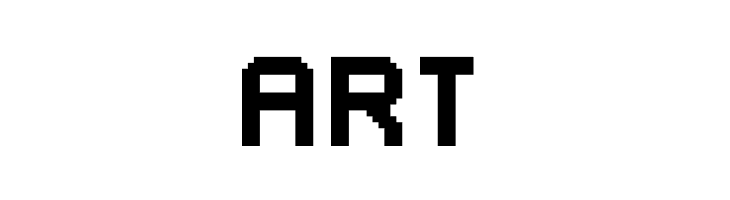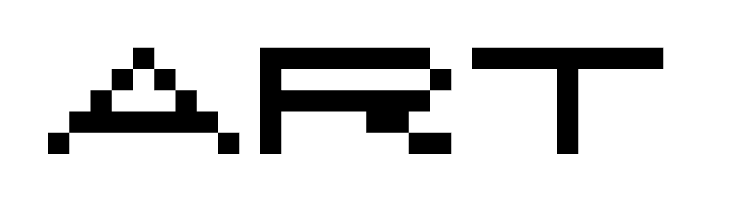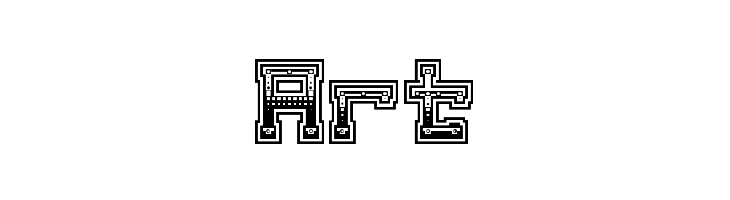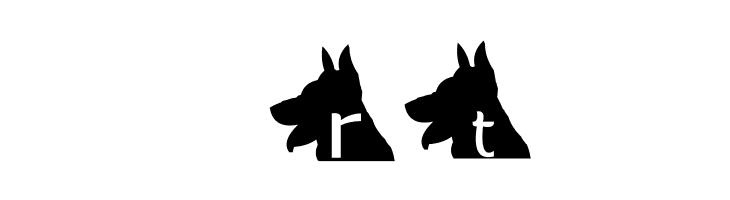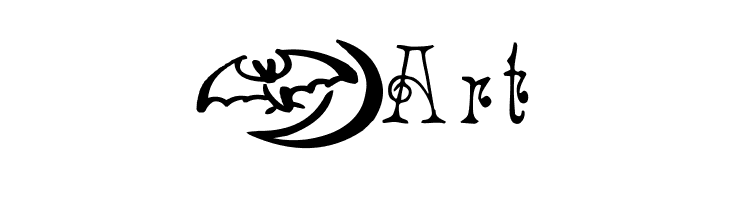
A bold, pixelated font with a geometric, retro digital style.
A pixelated, retro-style font with a geometric, grid-like design.
Whimsical dingbat font with diverse turtle illustrations.
A playful font with letters inside dog head silhouettes, perfect for pet-themed designs.
A decorative font with characters encased in heart shapes, ideal for romantic themes.
A decorative insect-themed dingbat font with detailed illustrations.
A whimsical, spooky-themed font with bat motifs and decorative elements.
A decorative font with characters inside turtle silhouettes, offering a playful and thematic design.
A bold, angular font with a futuristic, geometric design.